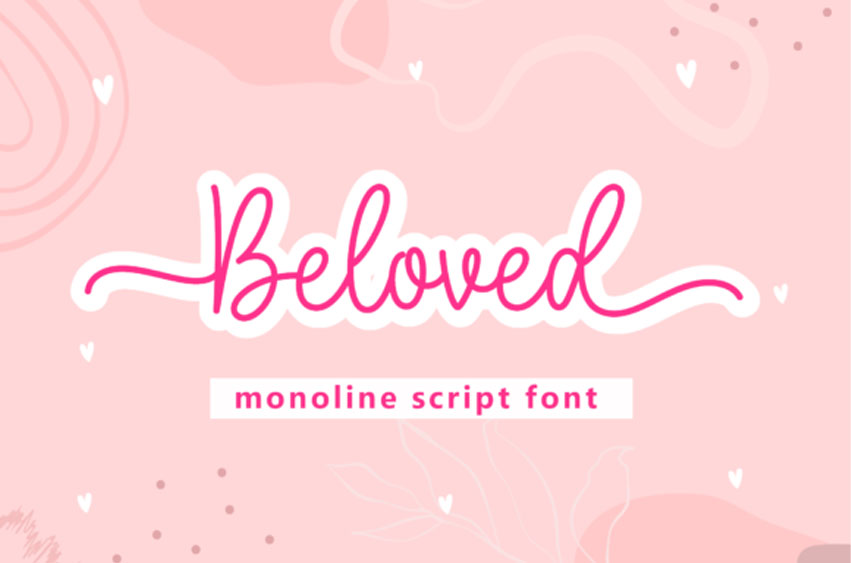
Beloved Monoline Font
Beloved Monoline Font is a delicate, elegant, and flowing handwritten font. It has beautiful and well-balanced characters, and as a result, it matches a wide pool of designs.
Beloved is PUA encoded, which means you can access all of the glyphs and swashes with ease!